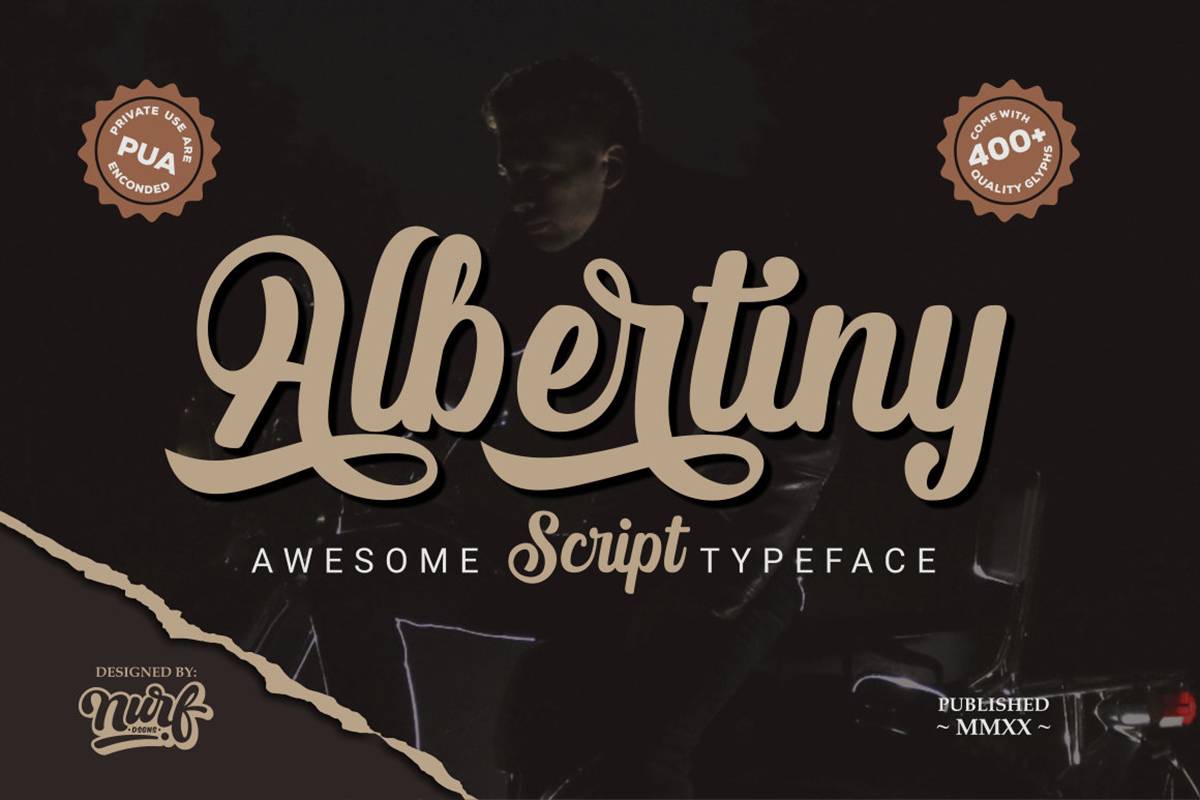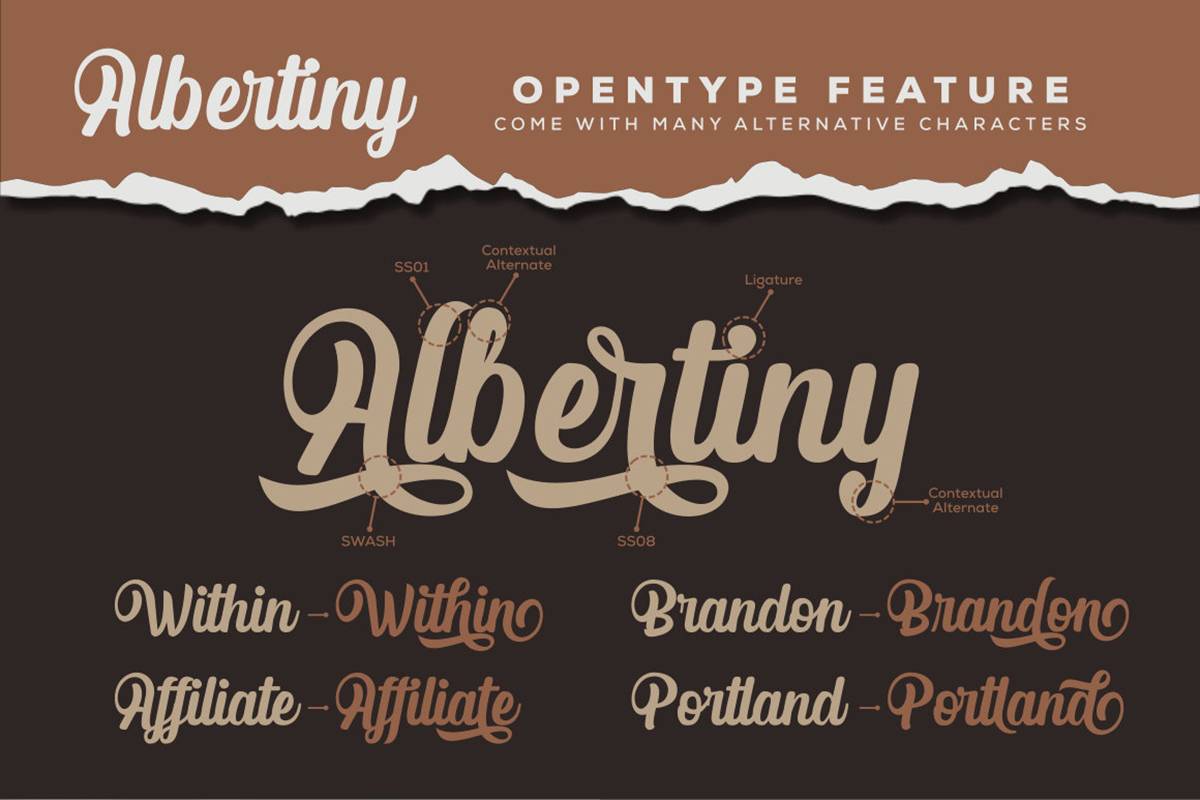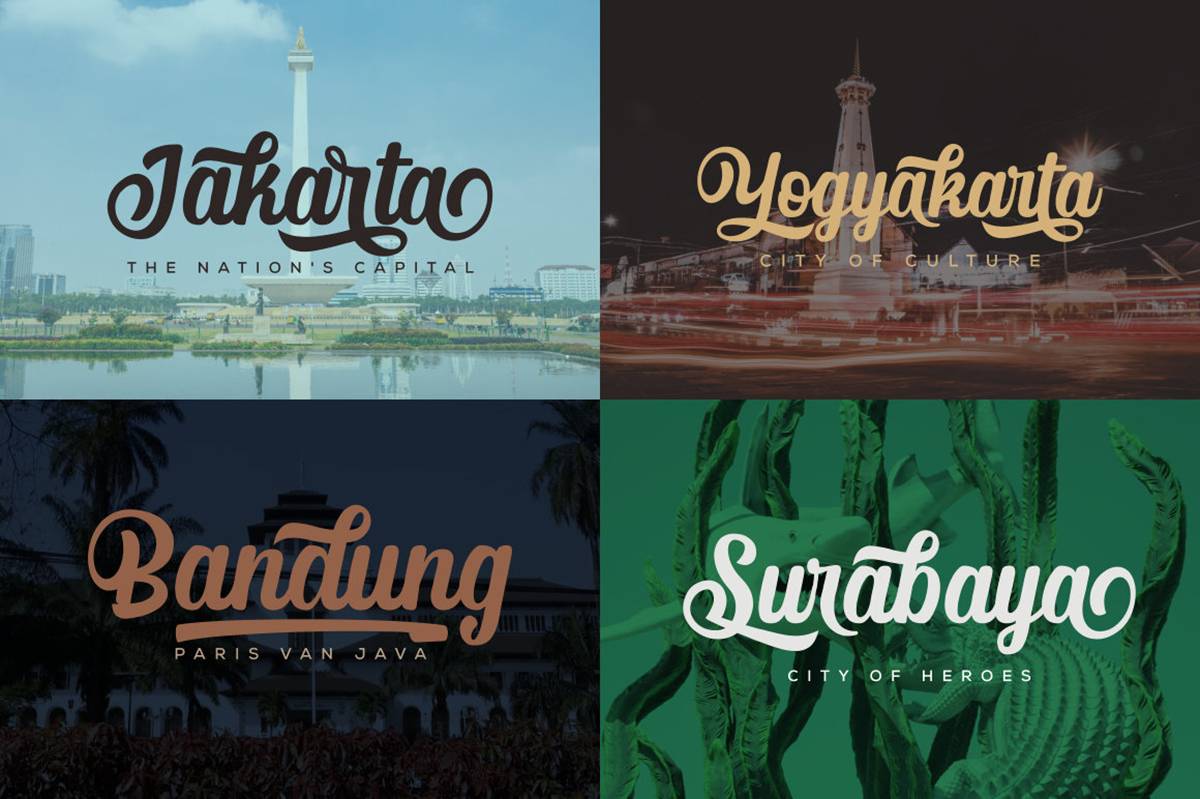
Albertiny is a bold script font with a smooth, flowing style that blends vintage charm and modern flair. Its rounded, connected letterforms and consistent weight make it perfect for eye-catching logos, branding, and headlines where a playful, friendly, yet polished look is desired. This font works especially well in creative projects and packaging that seek a warm, approachable character with a touch of elegance.
Albertiny Font
About Albertiny Font
| Font family | Albertiny Font |
| Designer | Nur Faidin - Nurf Designs |
| Trademark | Nurf Designs |